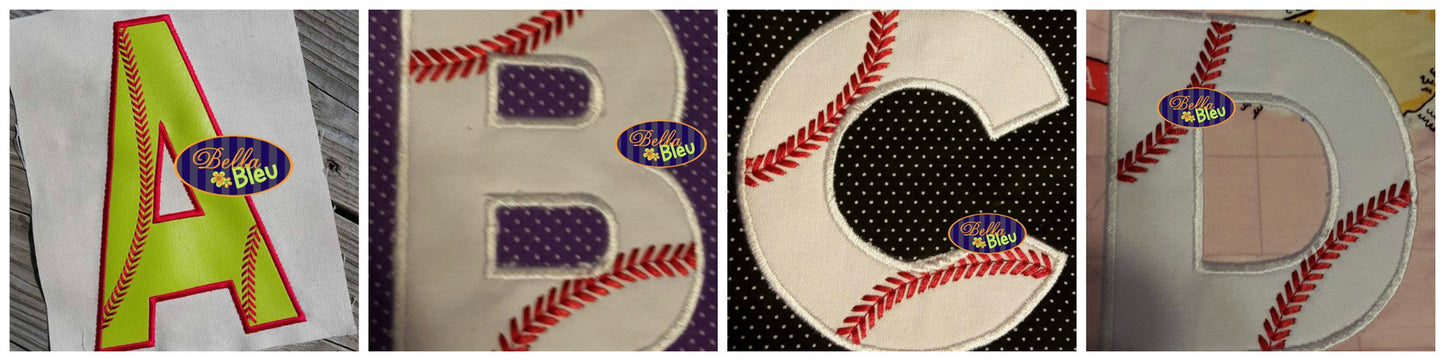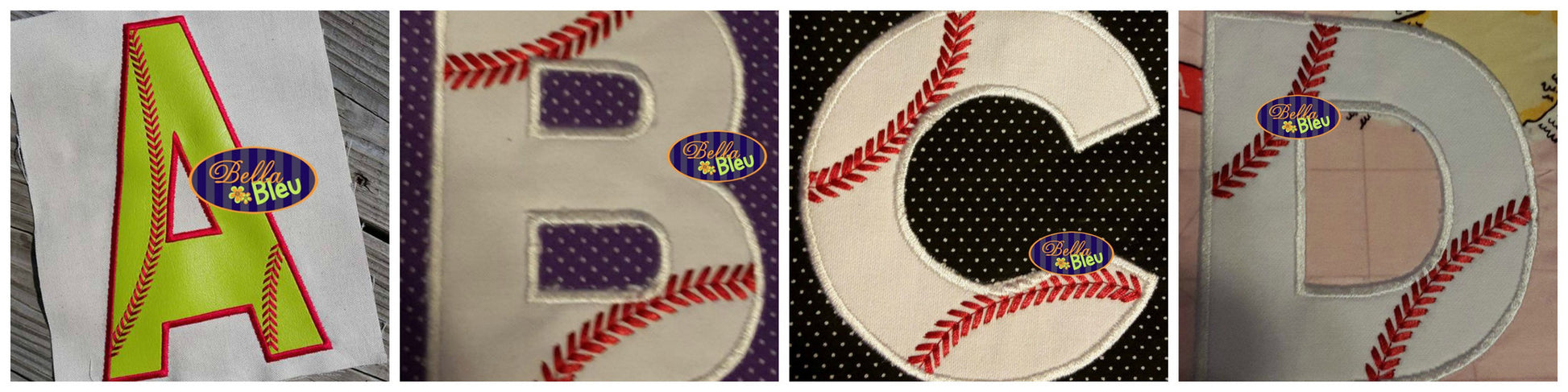
Applique Baseball Alphabet Font A to Z with Stitches Applique Embroidery Design
This listing is for a set of Baseball Letters Alpha Font accented with stitches from A-Z.
These are perfect for any project!
Add it to a baseball tee, tote bag or sweatshirt for your favorite team or player!
Perfect for birthday tees!